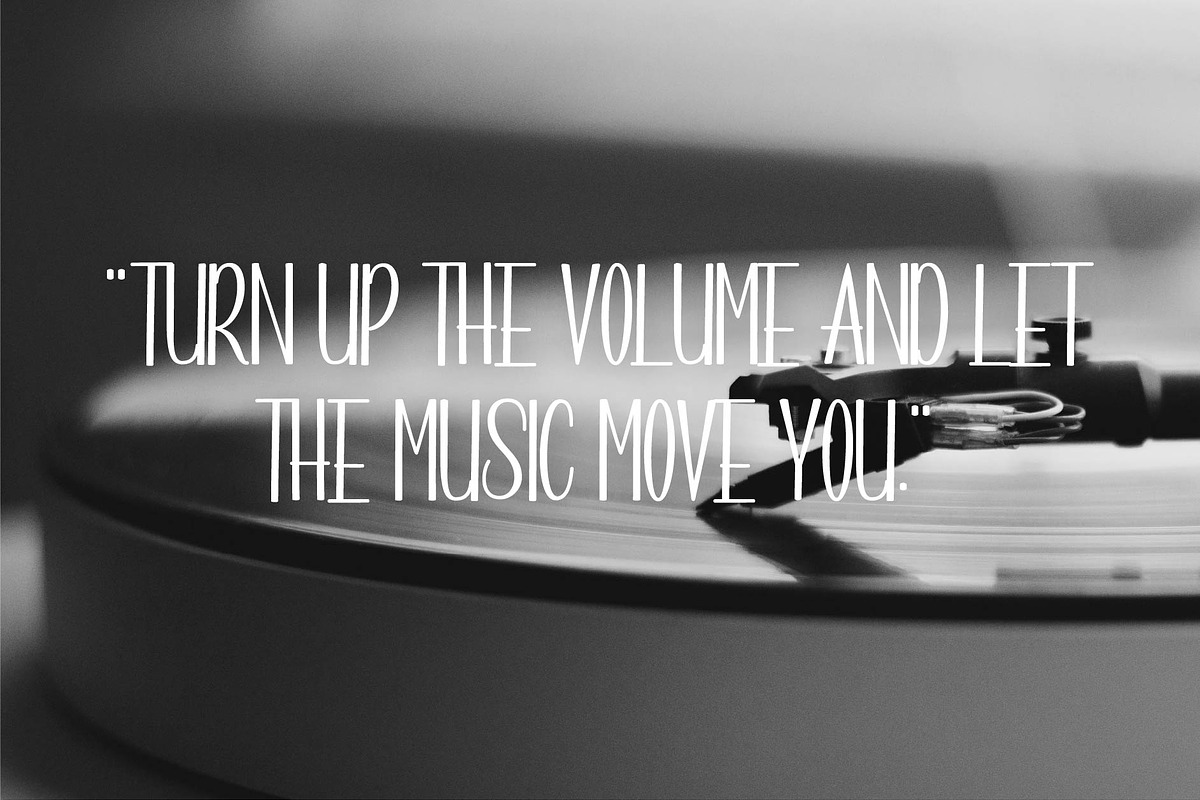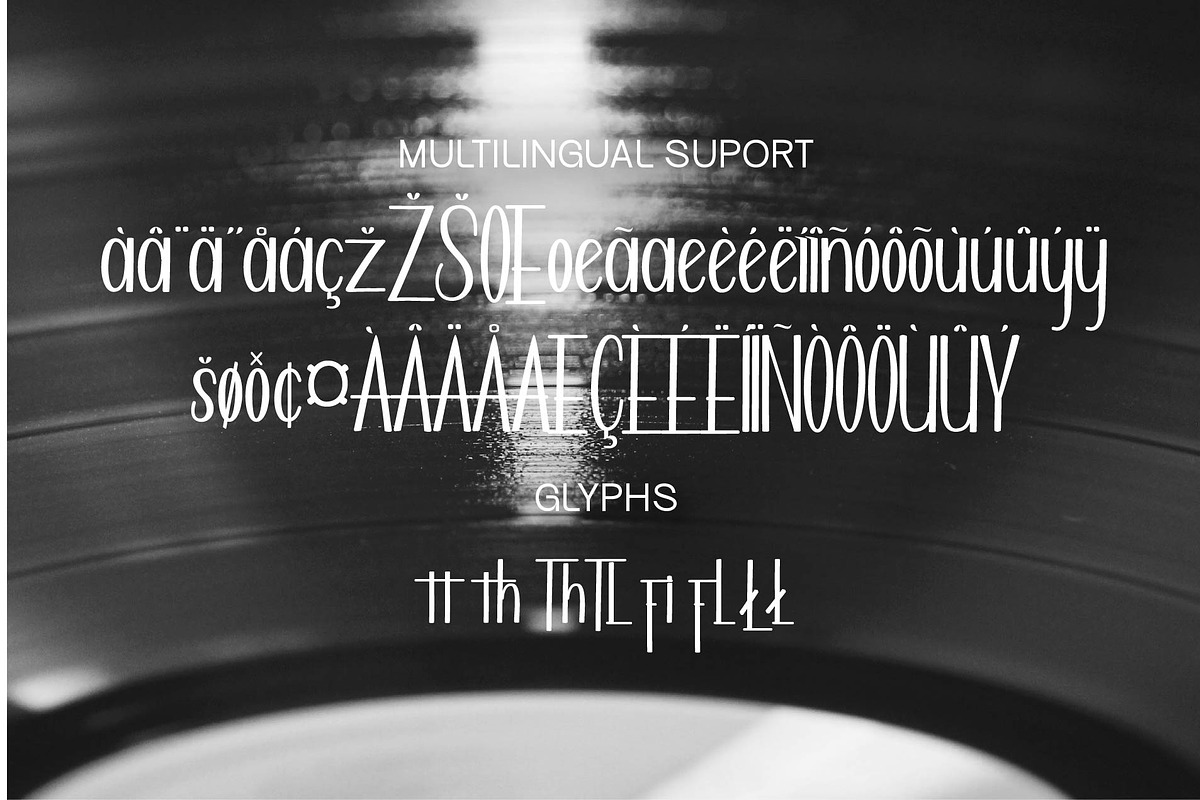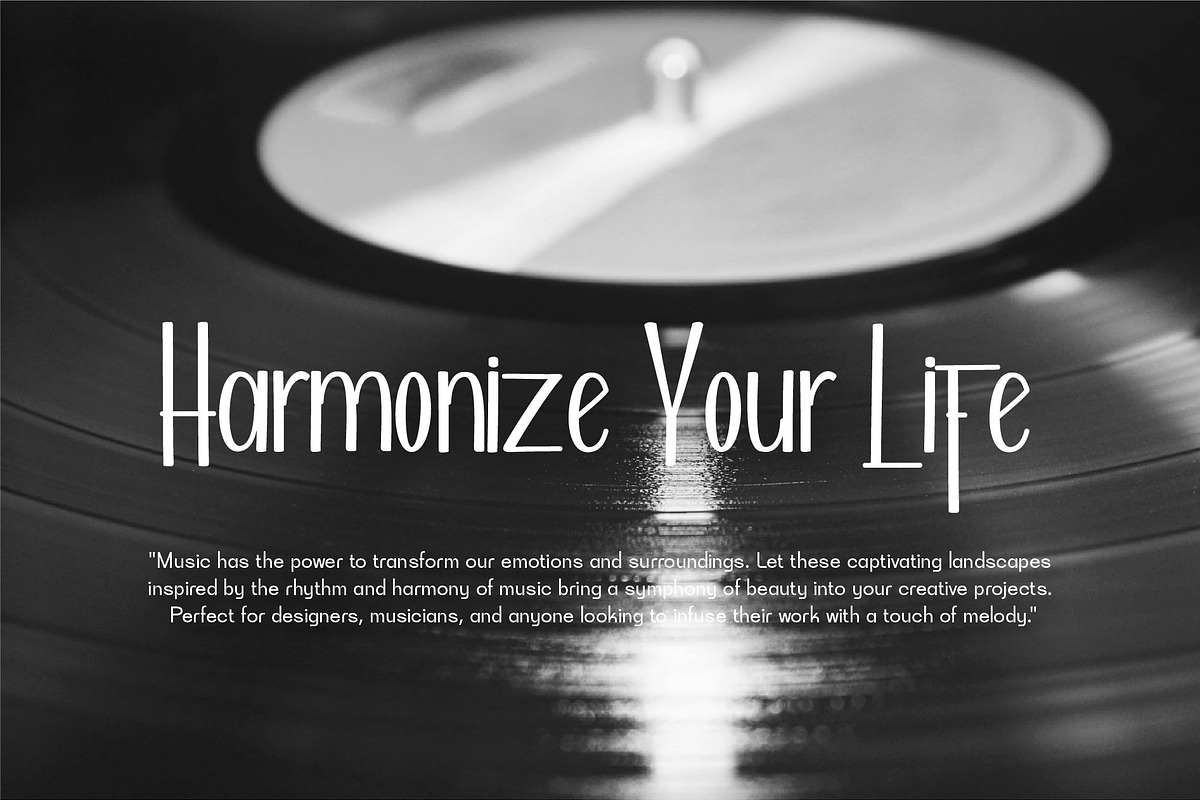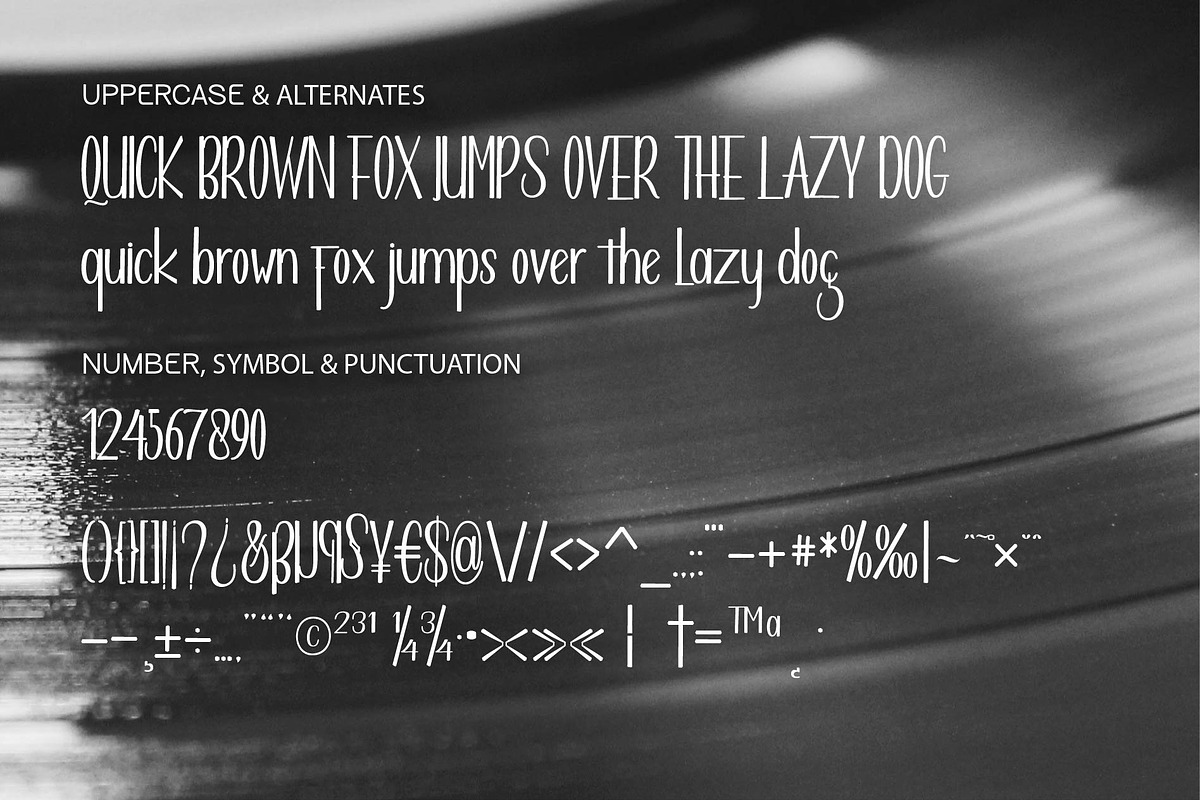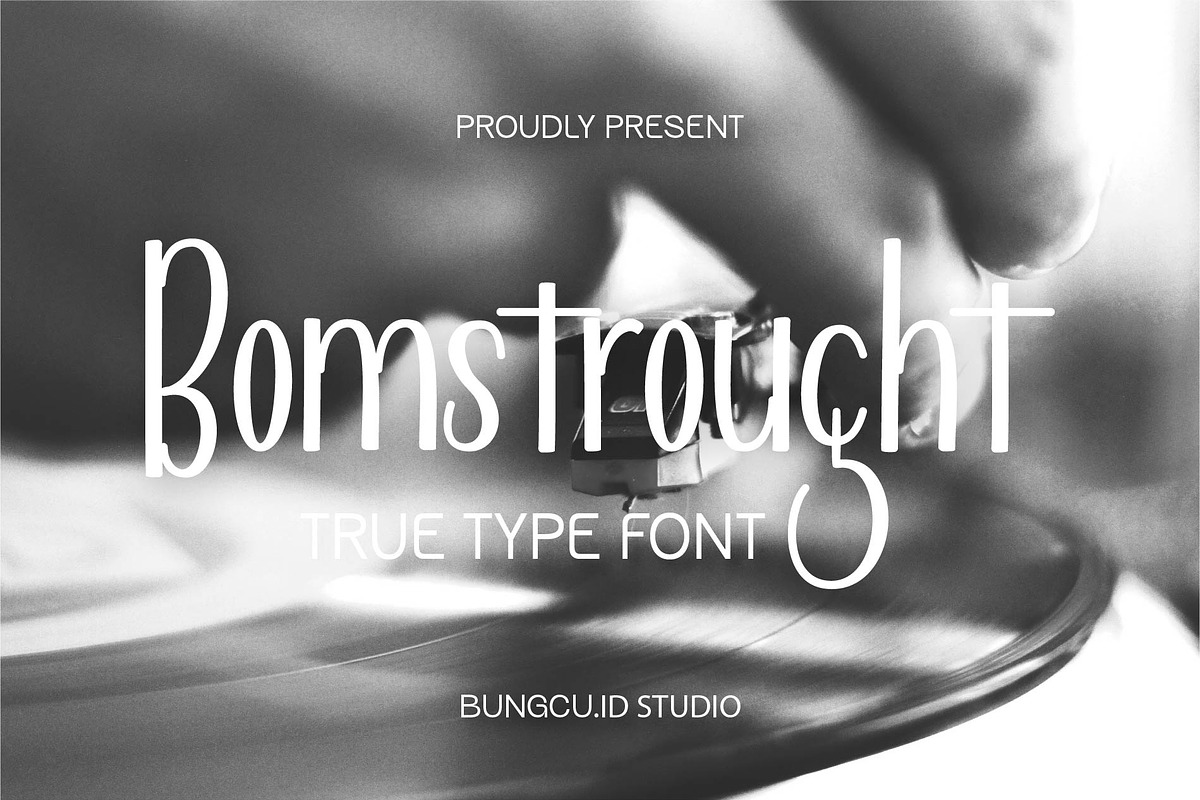
Bomstrought
Bomstrought is a textured brush font, a contemporary design approach. Suitable for use in title design. Such as apparel, invitations, book titles, stationery designs, quotes, branding, logos, greeting cards, t-shirts, packaging designs, posters and others. Dreamy Brush includes a complete set of upper and lower case letters, as well as multi-language support, numbers, punctuation, ligatures.